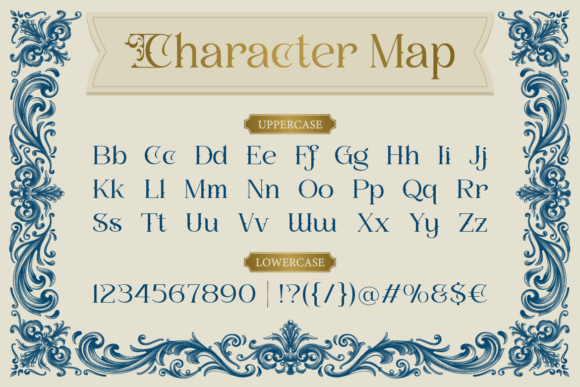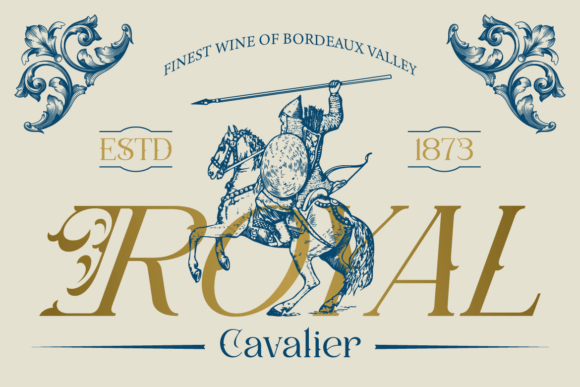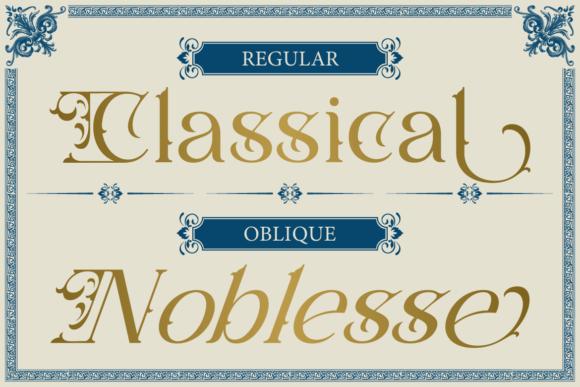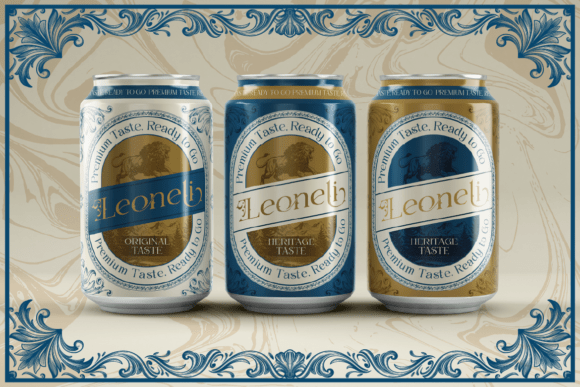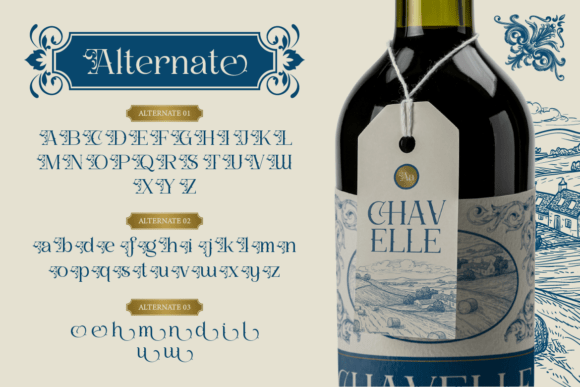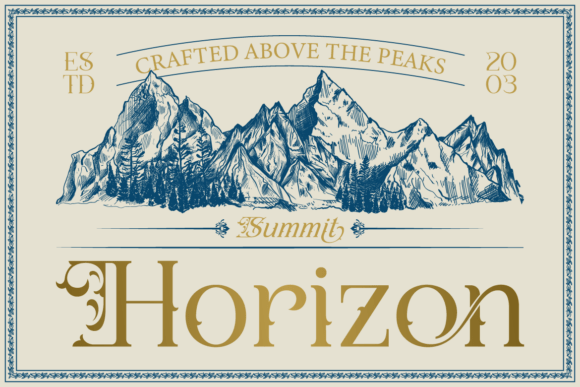
Introduction to Shaprone Font
Have you ever been working on a design project, pouring your heart and soul into the details, only to feel like something’s missing – a touch of elegance, a dash of sophistication? That’s where the Shaprone Font comes in, a timeless classic that adds a refined and classy touch to your creative project. With its vintage European inspiration and luxury packaging design aesthetic, this font is the perfect solution for designers looking to elevate their designs to the next level.
As a valuable design resource, Shaprone Font offers flexibility and versatility, making it an essential tool for designers working on a wide range of projects, from wine labels to luxury branding, and from vintage packaging to elegant invitations. Whether you’re working on a high-quality design or a free download, Shaprone Font is sure to impress with its high-quality typography and transparent background.
- Unique characteristics: Elegant, modern design with a subtle flair, perfect for adding a touch of sophistication to any creative project
Honest Review: Shaprone Font
I recently stumbled upon the Shaprone Font and I have to say it’s a great addition to any designer’s toolkit. The font is free to download and offers a high quality, transparent background that makes it perfect for creative projects.
What works well: ✨ The font has a modern and sleek design that’s easy to read, making it perfect for use in logos, branding, and digital signage. The font also comes in a range of weights, from light to bold, allowing for versatility in your design.
- Modern and sleek design
- Range of weights (light to bold)
What doesn’t work well: ⚠️ The font could benefit from more language support, as it’s currently limited to Latin-based languages. Additionally, the font may not be suitable for use in very small sizes, as the characters can become difficult to read.
Overall, the Shaprone Font is a great resource for designers looking for a high-quality, modern font for their creative projects. With its transparent background and range of weights, it’s perfect for use in a variety of design applications.
Use the Shaprone Font in combination with other design elements, such as images and shapes, to create visually appealing designs. Experiment with different font sizes and colors to add depth and interest to your designs. The Shaprone Font is a versatile design resource that can be used in a variety of creative projects.
The Shaprone Font is commonly used in graphic design, digital art, and creative projects. It’s perfect for designing logos, business cards, and other marketing materials that require a professional and modern look. The Shaprone Font is also great for creating social media graphics, posters, and flyers.